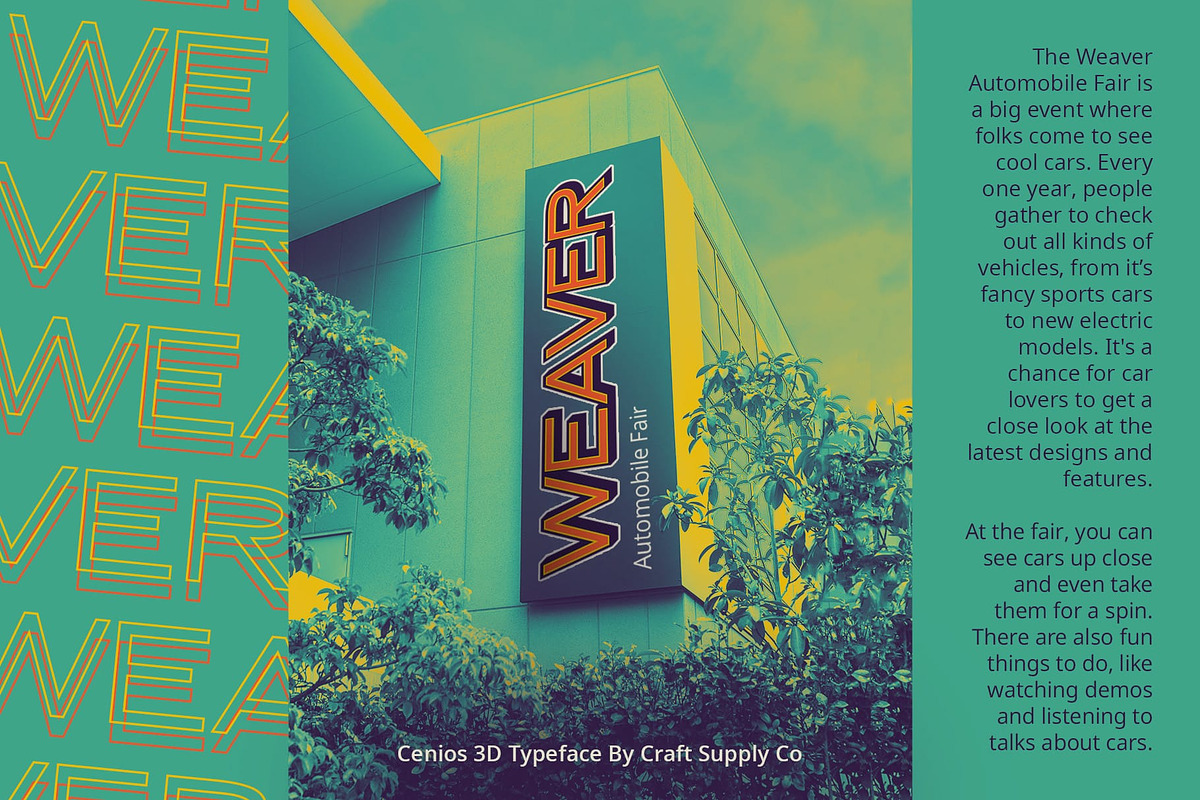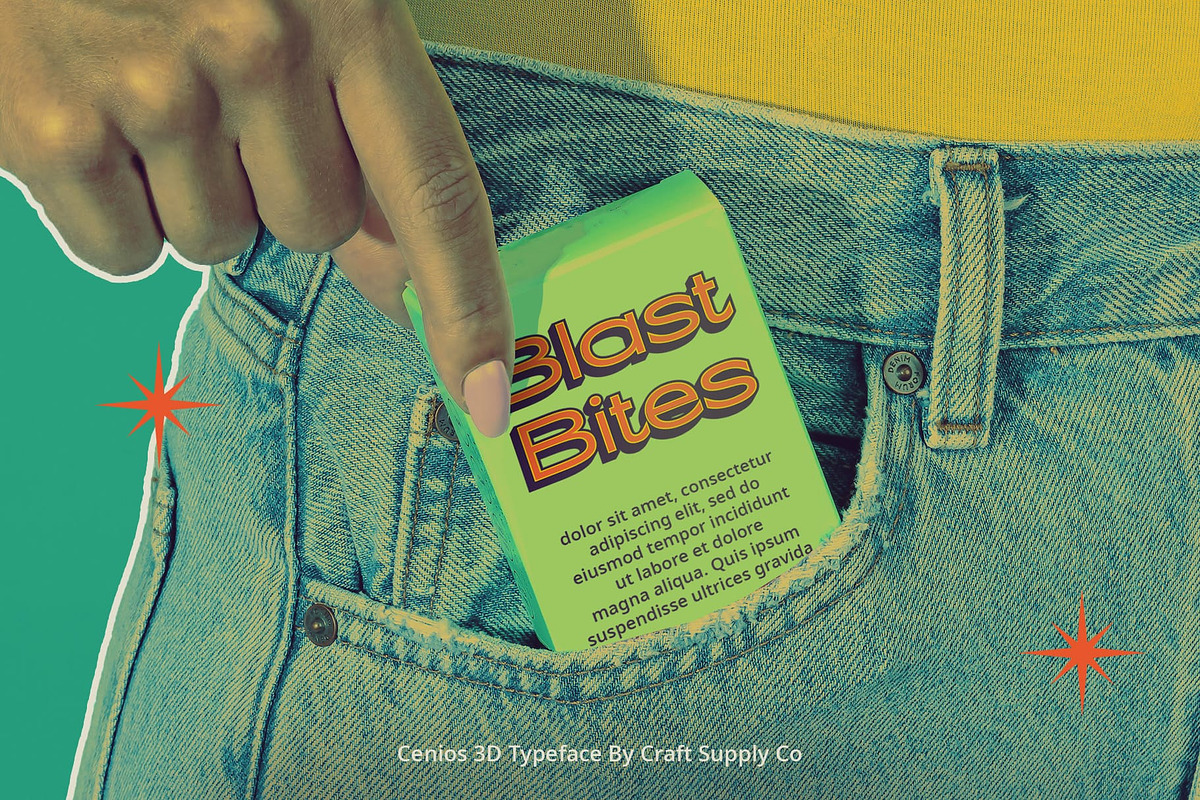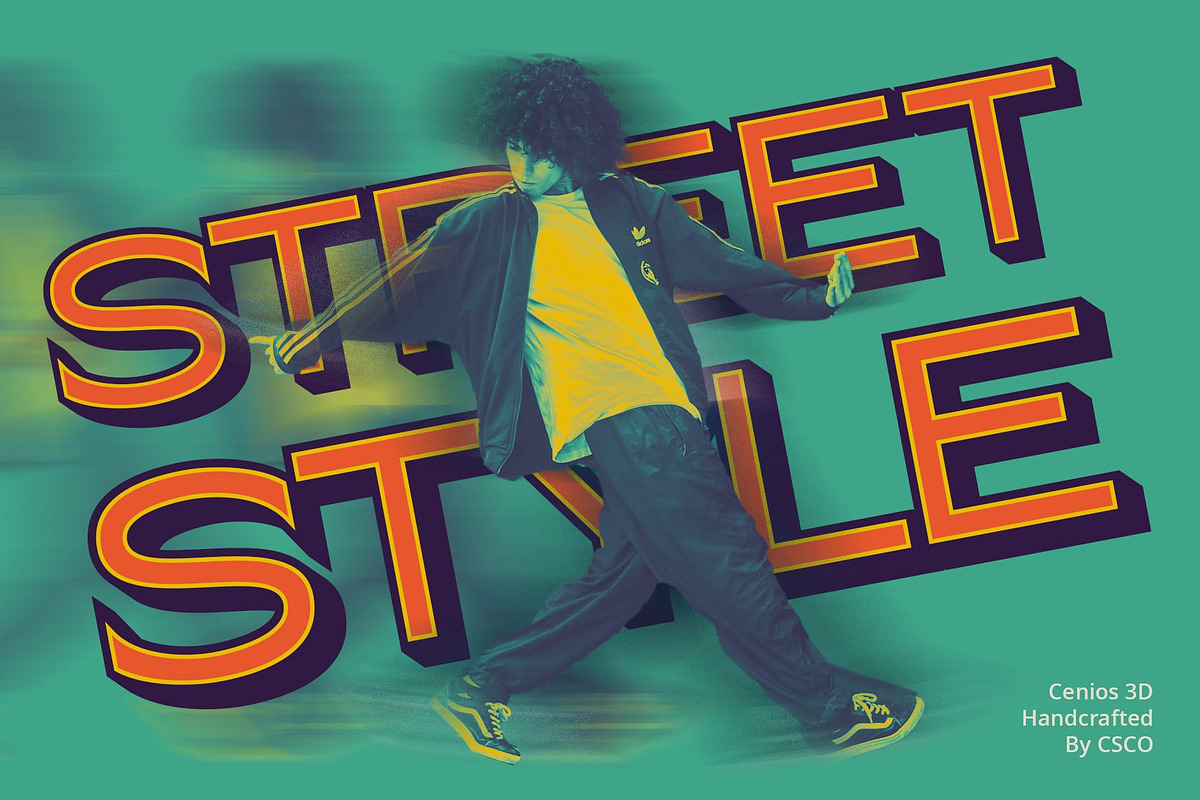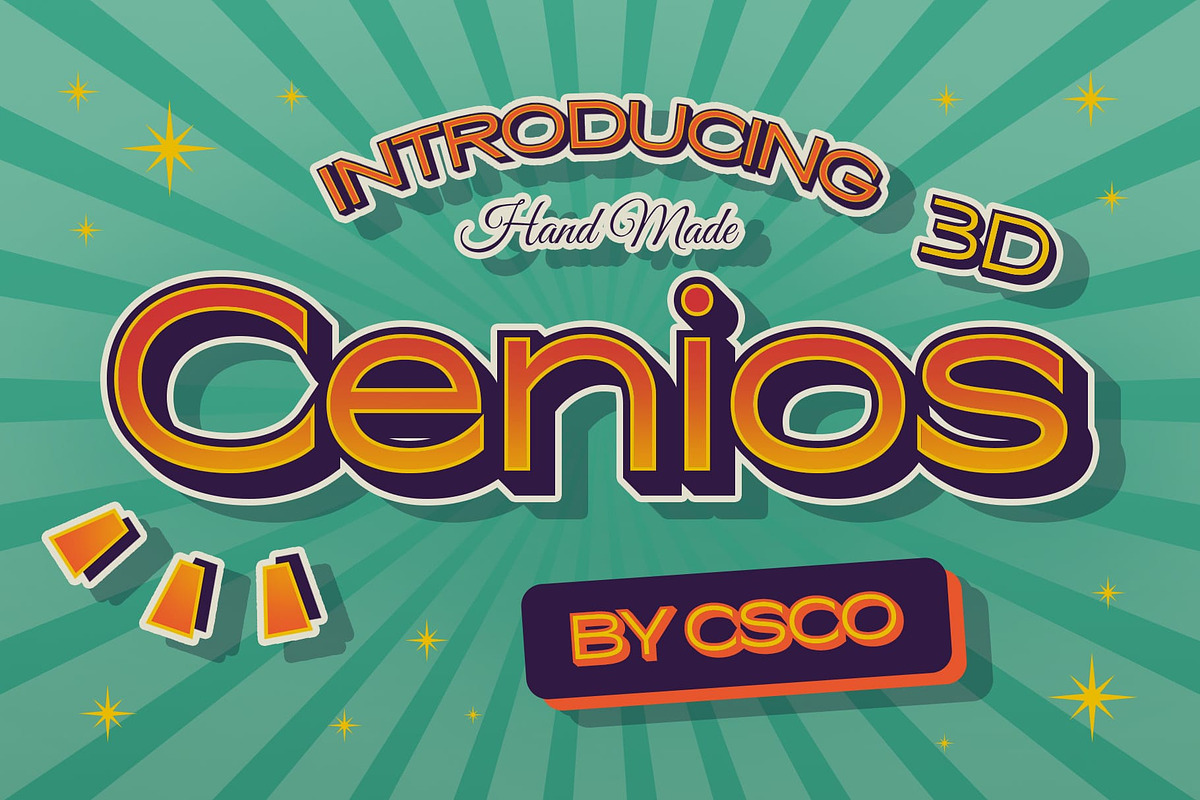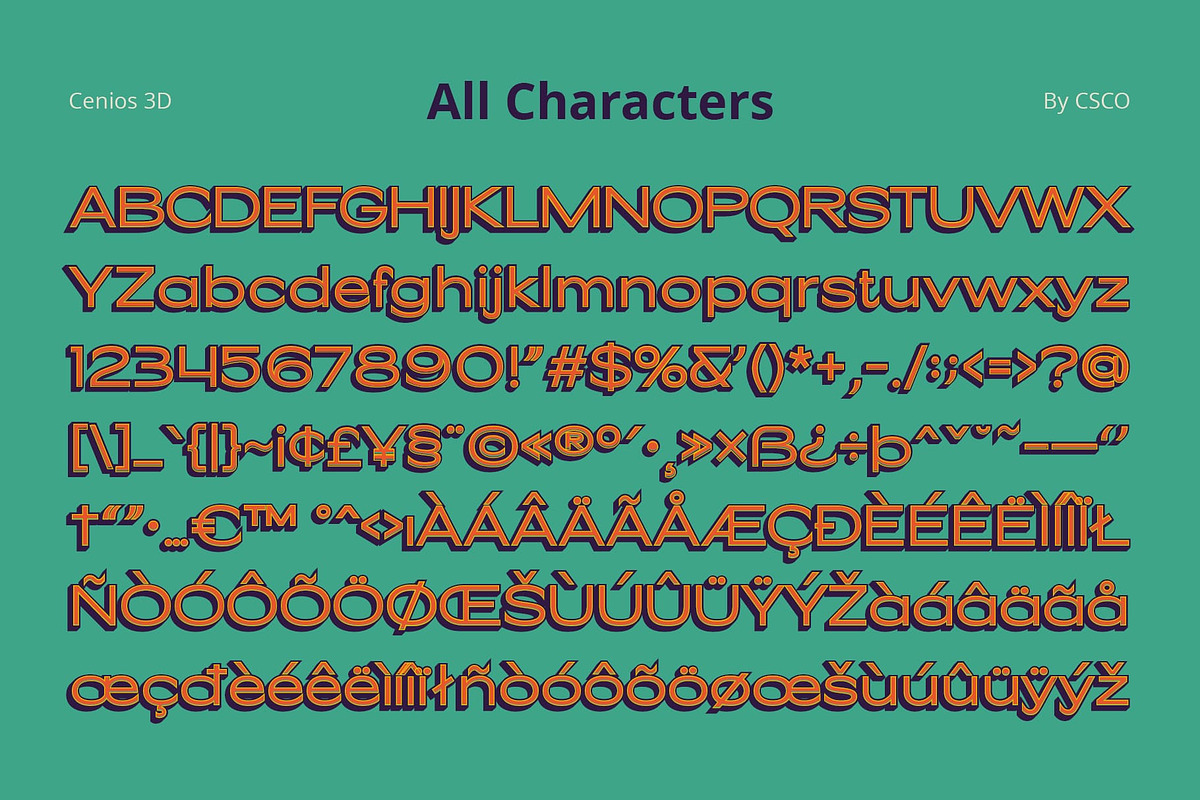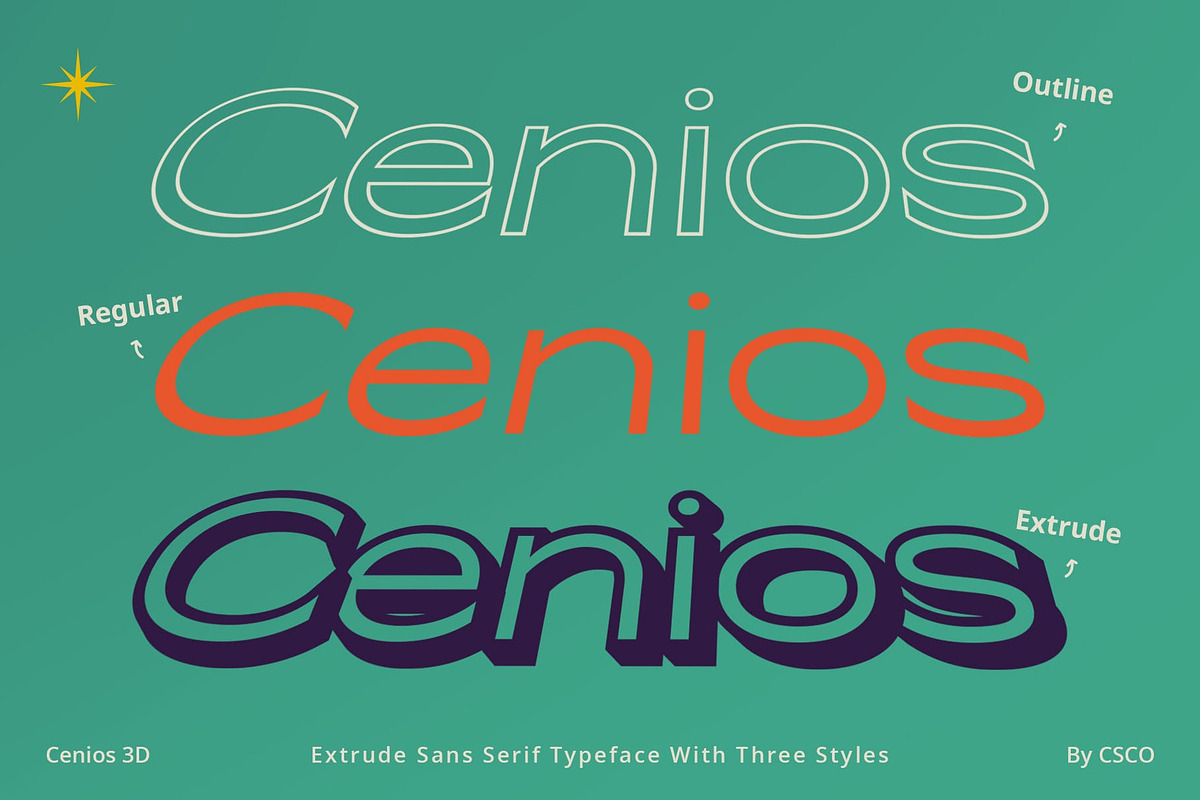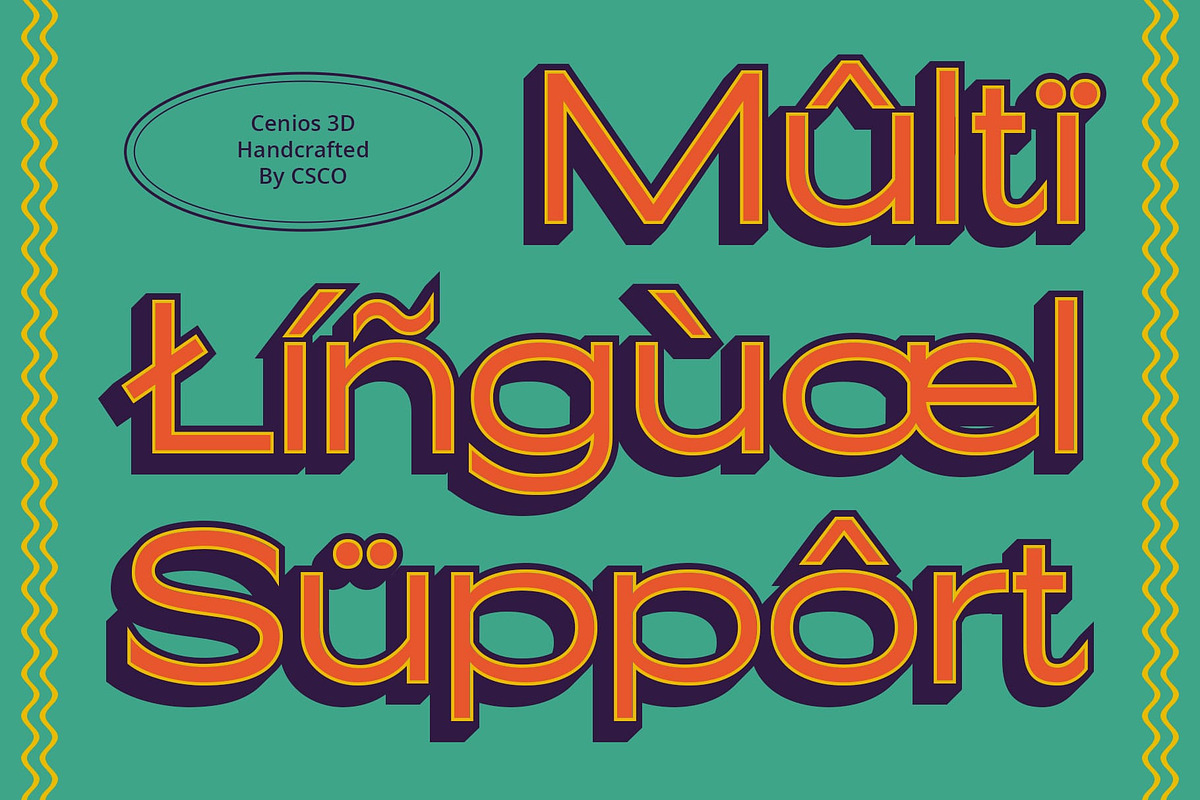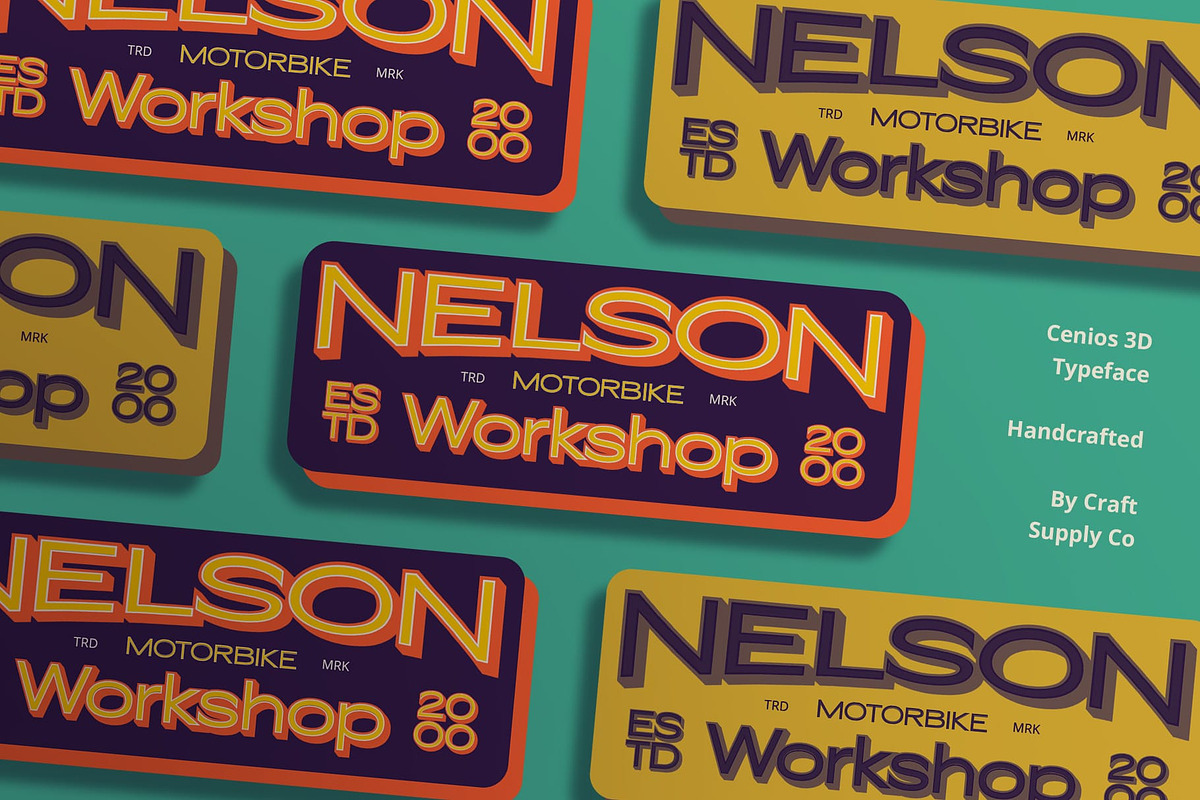
Cenios 3D
Cenios 3D: Redefining Display Typography
A Modern Twist on Sans Serif Cenios 3D presents a contemporary take on the sans serif style, characterized by its wide, low-contrast design. The addition of 3D effects elevates its visual appeal, making it an ideal choice for display purposes.
Wide and Low-Contrast Design With its wide proportions and low contrast between strokes, This font offers a bold and impactful presence on any display project. Its expansive letterforms command attention and ensure readability even at large sizes.
Enhanced Visual Appeal with 3D Effects The incorporation of 3D effects adds depth and dimension to Cenios, making each character visually engaging. This feature sets it apart from conventional sans serif fonts, giving it a unique and attractive edge.
Perfect for Display Needs Tailored specifically for display applications, This font excels in a variety of contexts, including advertising, signage, and branding. Its captivating design instantly captures the viewer’s attention, making it an effective tool for communication.
Bold Statement This font emerges as a bold and distinctive choice for display typography. Its wide, low-contrast design, coupled with captivating 3D effects, ensures that your message stands out with style and impact. Experience the allure of This font and redefine the way you approach display projects.
- Cenios Regular
- Cenios Outline
- Cenios Extrude Right
- Cenios Extrude Left